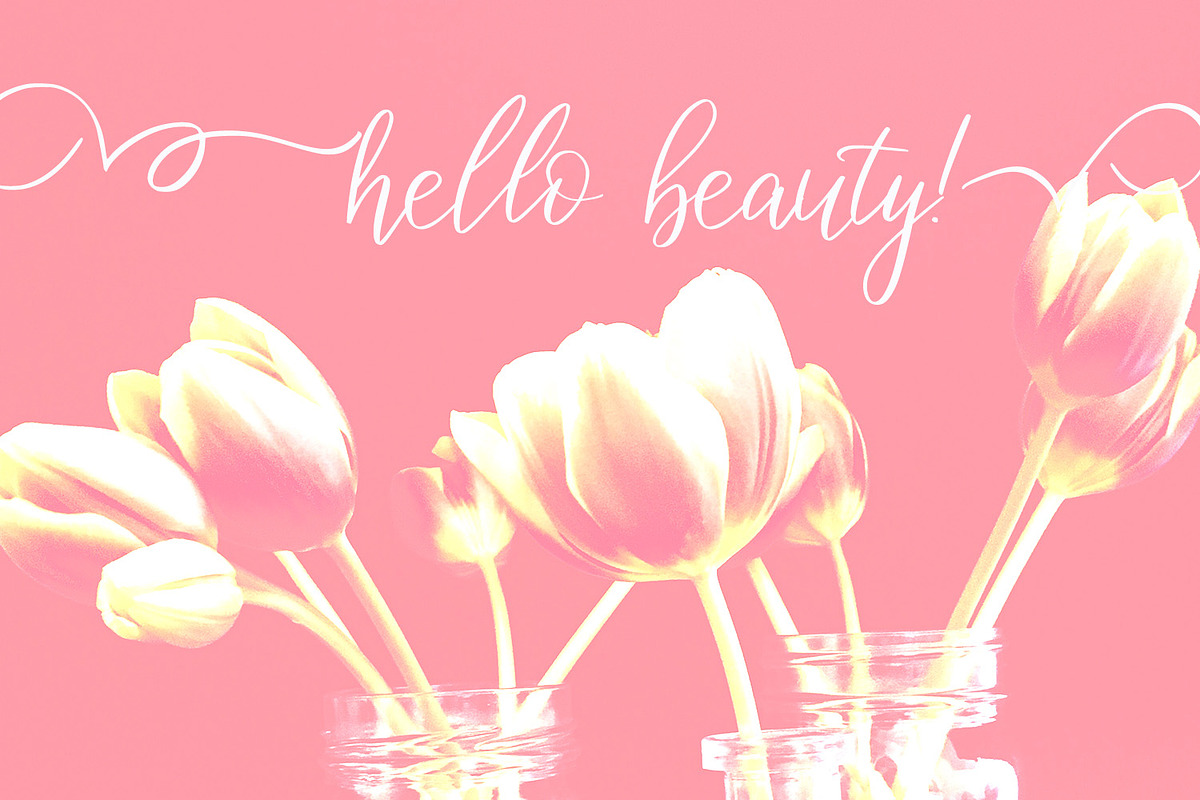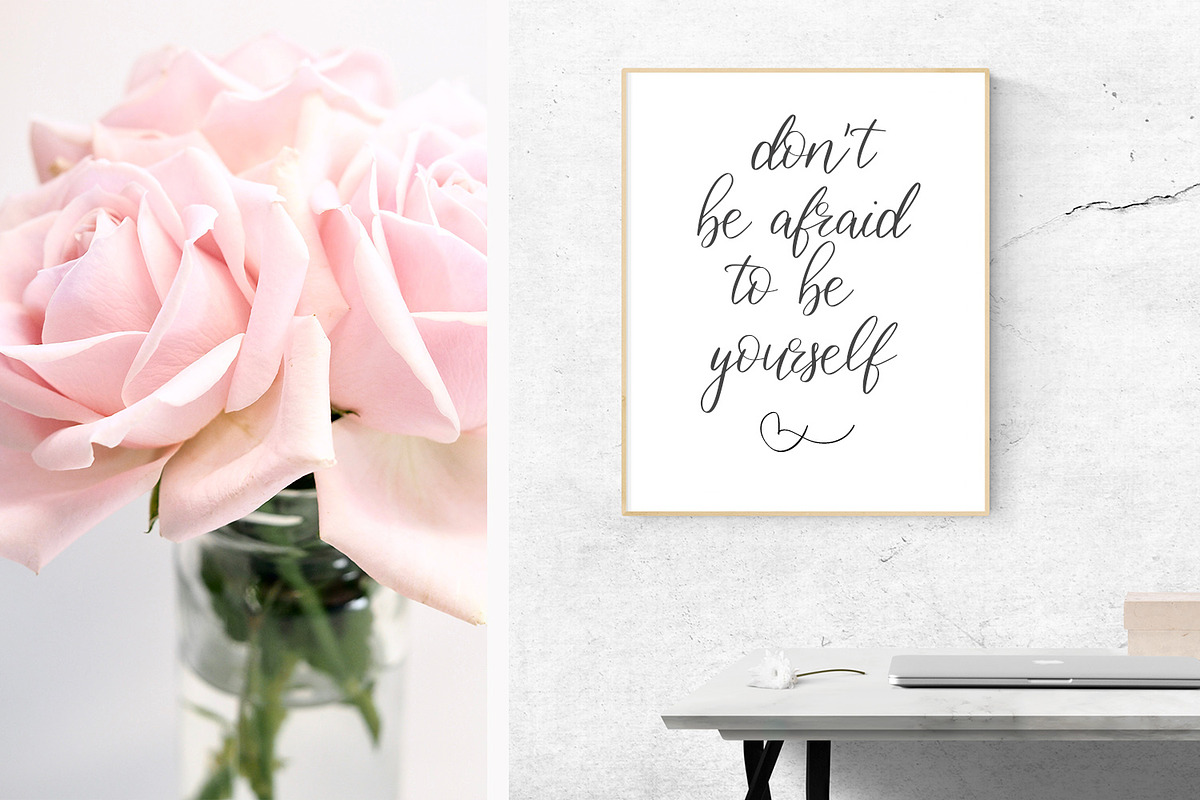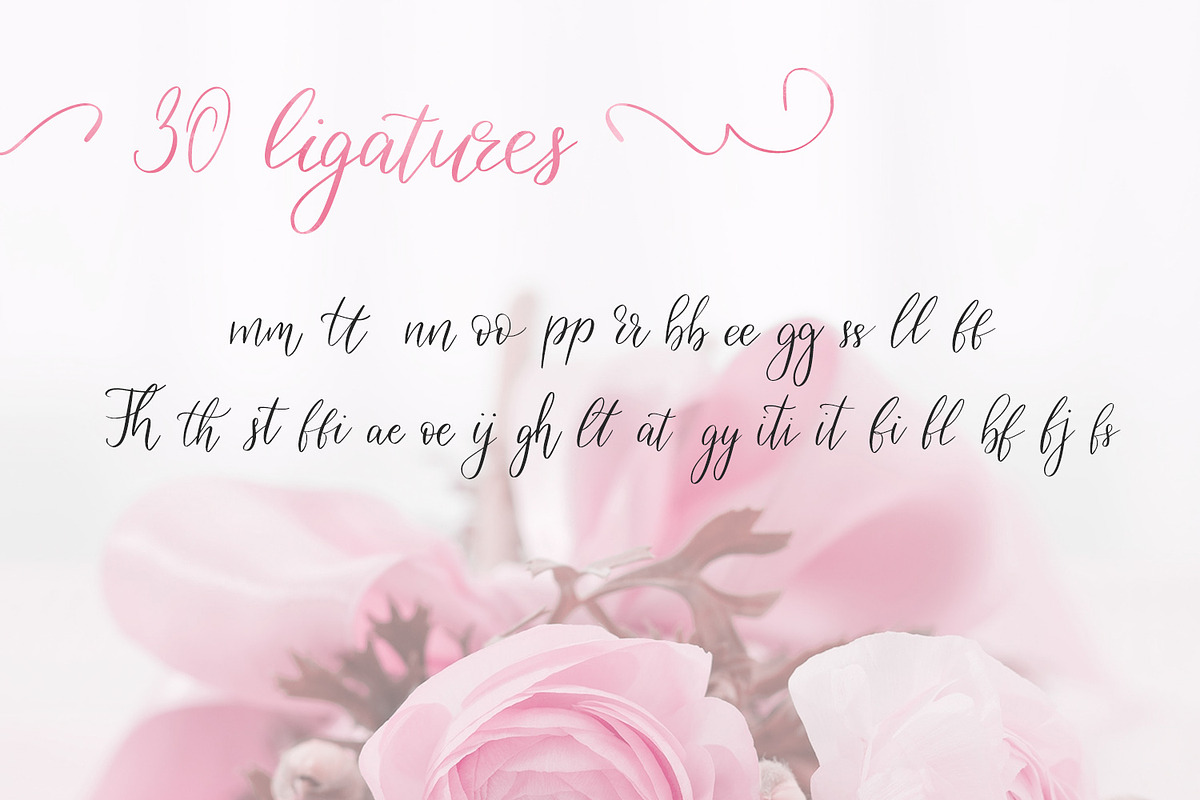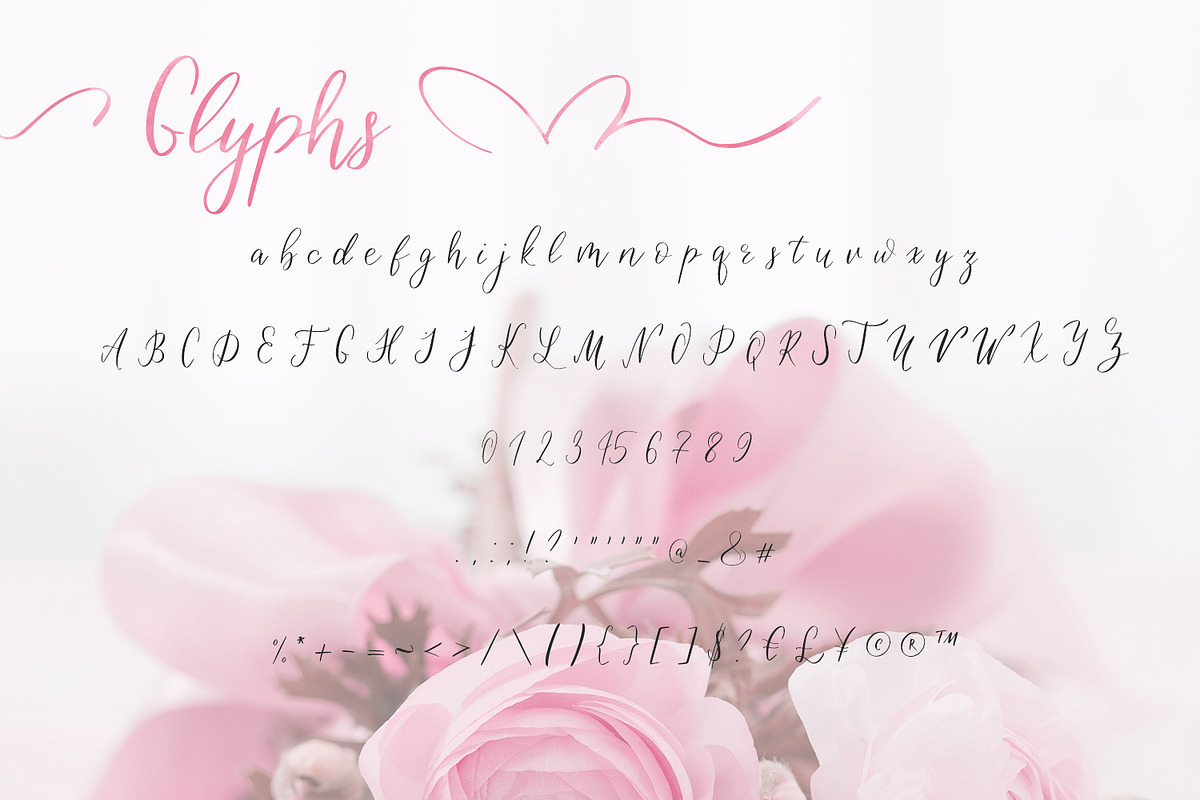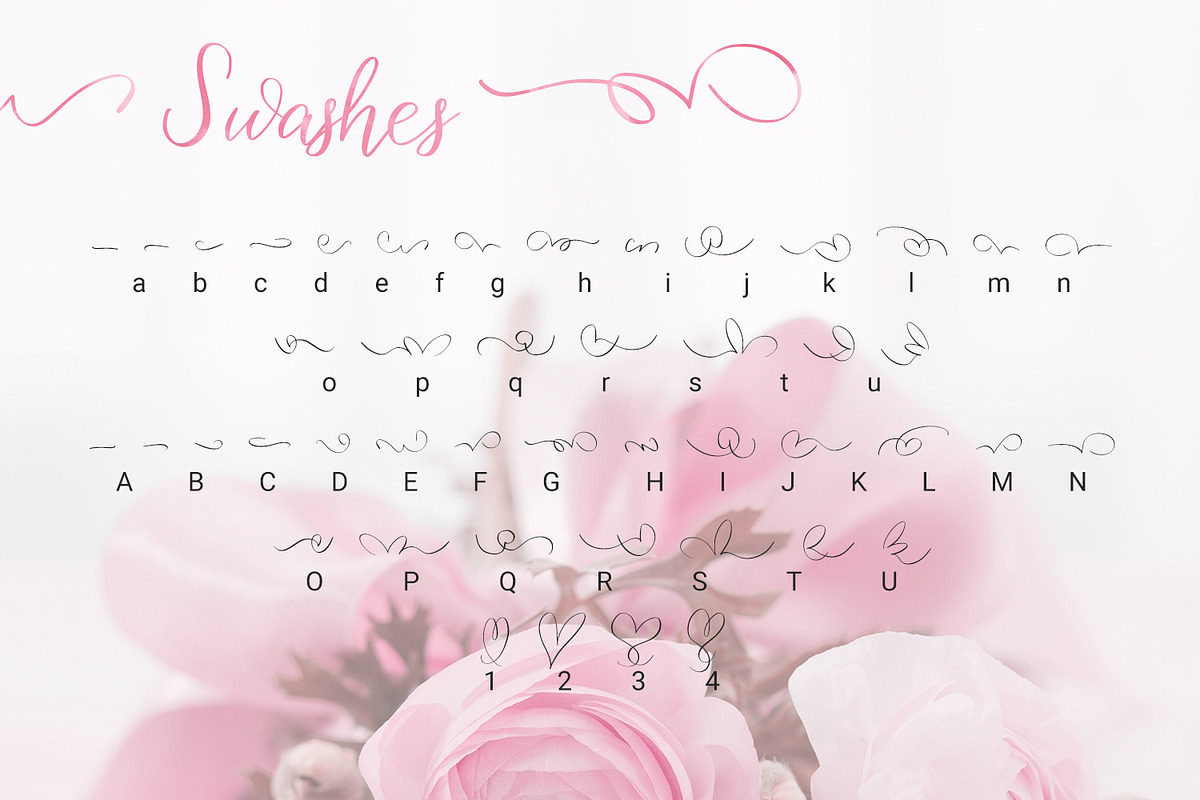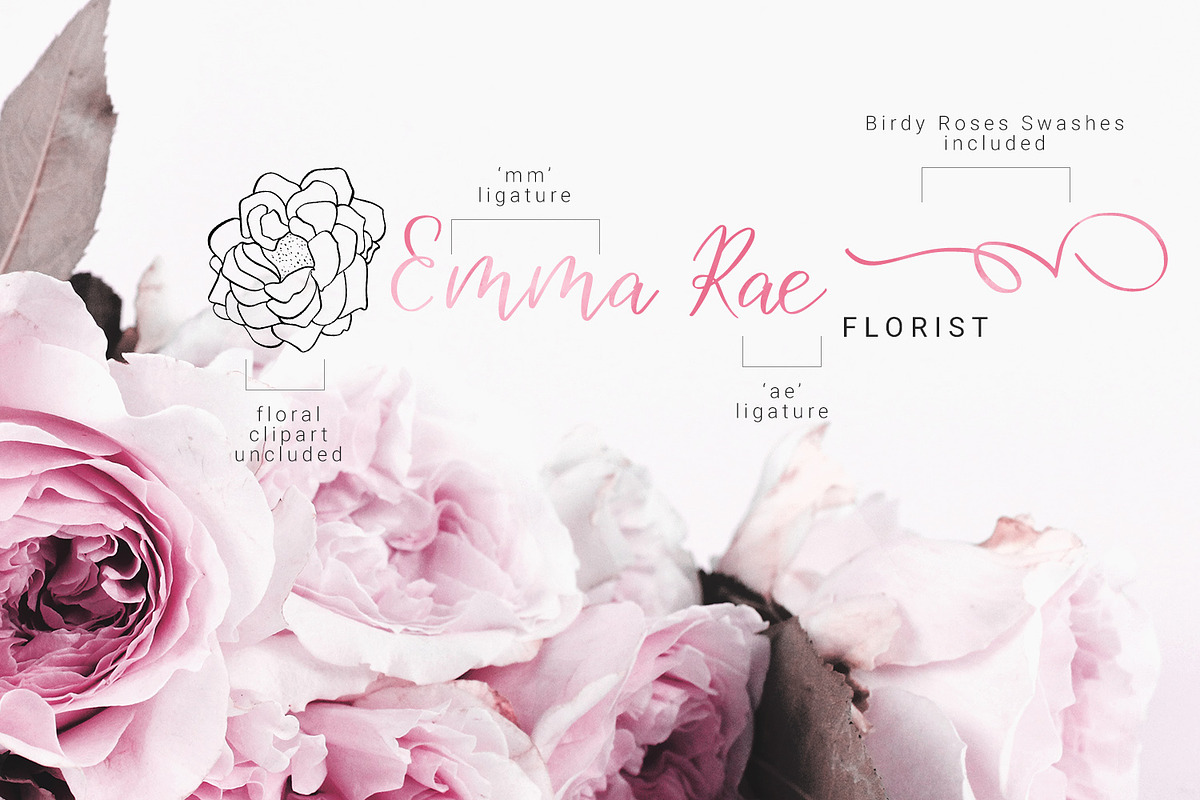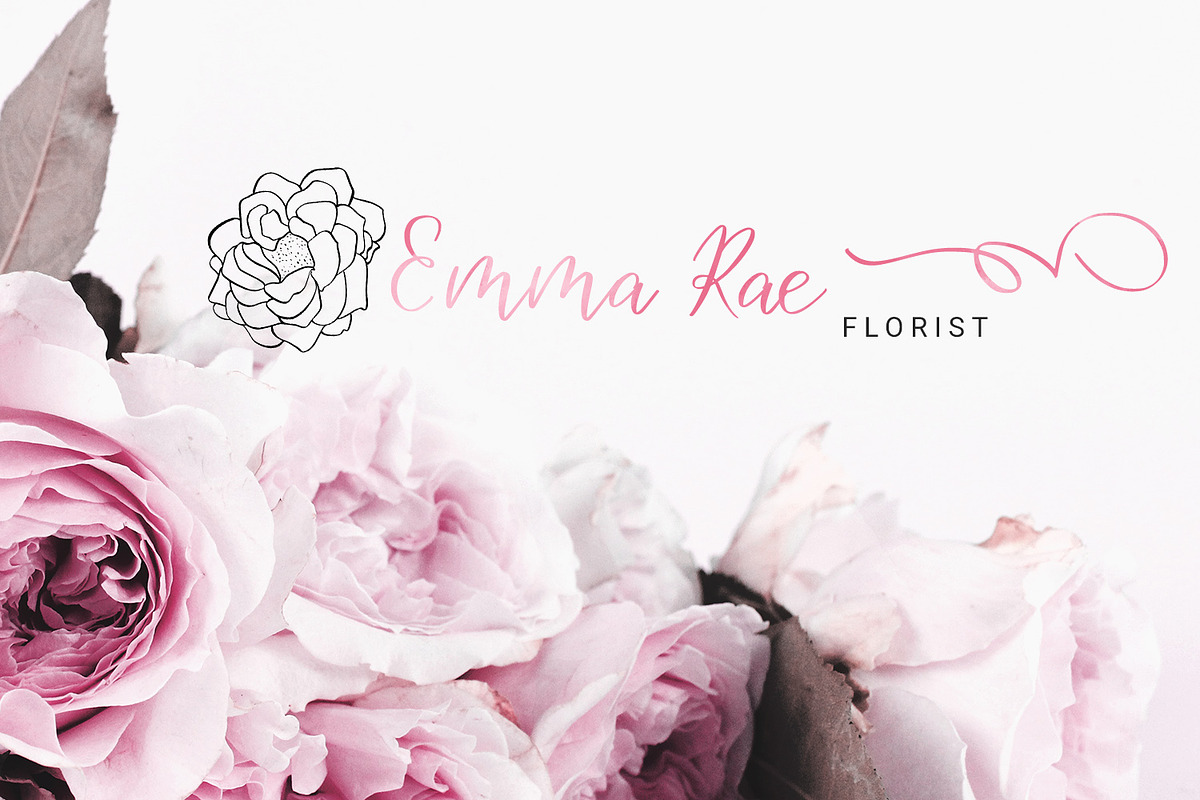
Birdy Roses | Script font + Swashes
Happy to introduce Birdy Roses Script font!
hand lettered quality
suitable for wedding invitations, announcement, and posters
perfect for social media posts
BONUS! Vector floral clipart included!
- hand lettered quality
- an elegant look
- swashes!
- modern calligraphy
- 30 ligatures
- suitable for wedding invitations, announcement, and posters
- perfect for social media posts